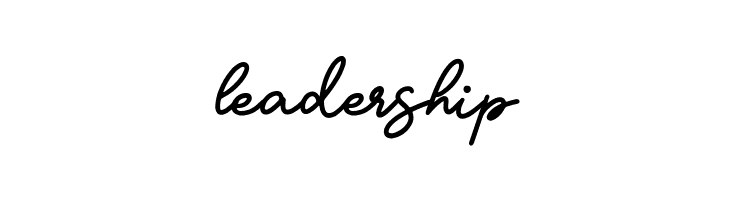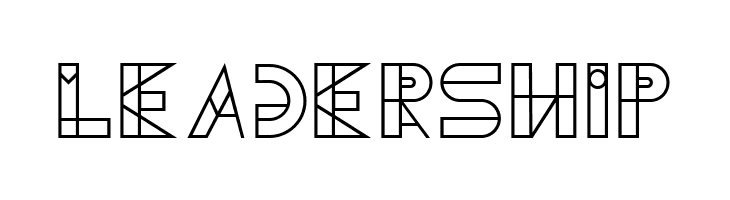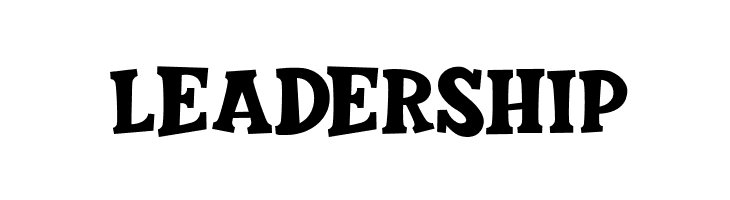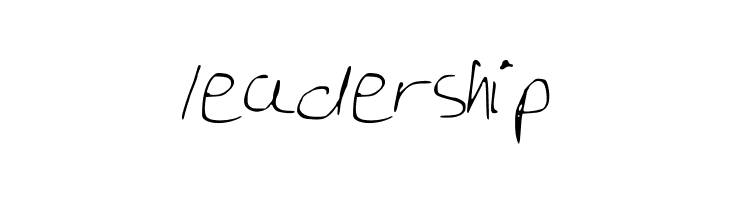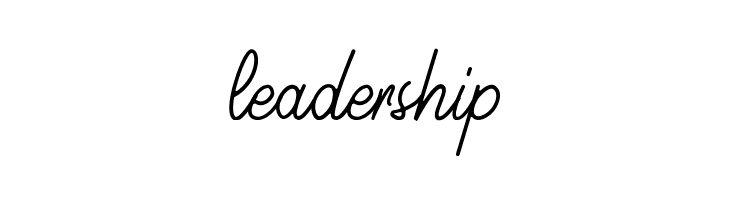
A bold, decorative font with a three-dimensional effect and vintage-modern aesthetics.
A fluid and artistic handwritten font with expressive strokes.
A bold, playful handwritten font with rounded, irregular letterforms.
A playful, handwritten font with smooth curves and a casual style.
A modern, geometric font with sharp angles and smooth curves.
A bold, geometric font with a modern, industrial feel and outlined characters.
A playful, handwritten font with dynamic and fluid strokes.
A lively and dynamic script font with bold, connected letterforms.
A playful, handwritten font with fluid and dynamic strokes.
A decorative dingbat font with genealogy and history-themed illustrations.
A bold, geometric monospaced font with a modern, technical style.
A bold, geometric font with a 3D effect and consistent rounded edges.
A bold, italicized font with a strong, dynamic presence and shadow effect.
A bold, italicized font with a modern and dynamic style, featuring outlined characters.
A bold, outlined font with a modern, playful aesthetic.
A modern, geometric font with a hollow, outlined style.
A pixelated, retro-style font with a blocky, digital appearance.
A pixelated, blocky font inspired by retro digital displays.
A bold, pixelated font with a retro video game style.
A bold, pixelated font with a retro digital style.
A bold, geometric font with a three-dimensional, retro-futuristic style.
A lively and expressive handwritten font with fluid, cursive letterforms.
A sleek, modern font with geometric design and thin strokes.
A bold, 3D decorative font with a playful and dynamic style.
A dynamic cursive font with bold strokes and elegant flow.